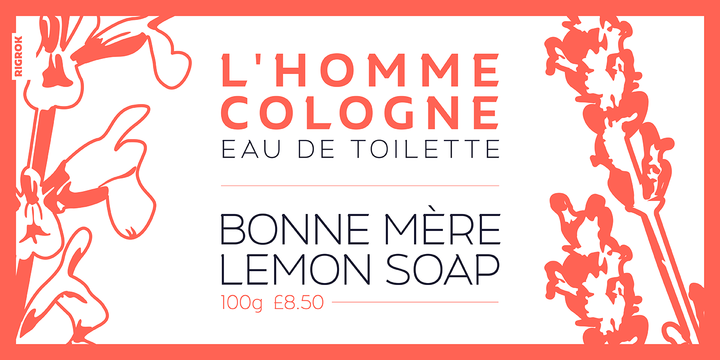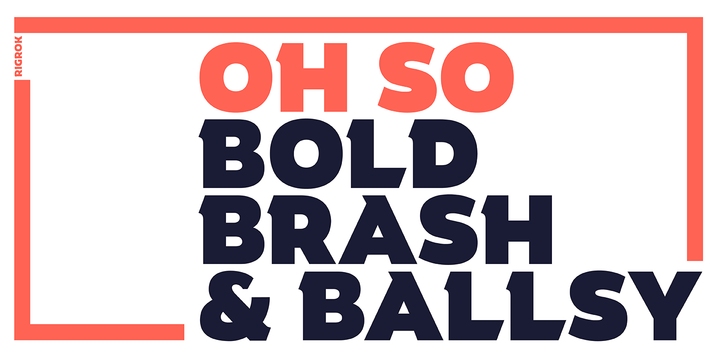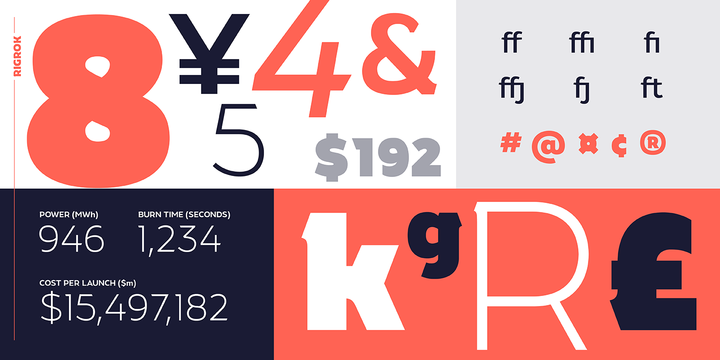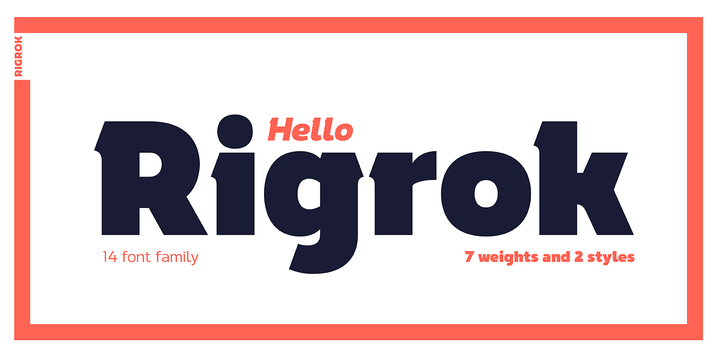
Rigrok is a 14 style semi serif designed by Stew Deane. The design of the typeface was intended to create a premium feel that is suitable for the widest range of tasks, while still maintaining a unique sense of character.
Stew designed Rigrok to draw on his graphic design experience to create a typeface that is suitable for many a design or branding job.
The result is an easy to use, versatile typeface that charms with personality and character.